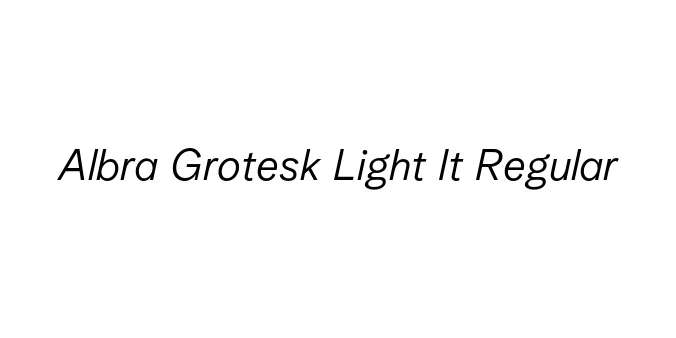
Albra Grotesk Light It Regular
Designed by BumBumType
Albra Grotesk is a contemporary sans-serif typeface family designed by the independent foundry BumBumType. It is part of the larger Albra collection, which aims to provide a high-performance toolkit for modern designers seeking a balance between classic structures and modern aesthetics. The Grotesk variant strips away decorative elements to offer a clean, high-contrast look that bridges the gap between historical grotesque models and modern elegance.
The Light Italic version is characterized by its sophisticated slant and refined character construction. It offers excellent legibility in editorial contexts while maintaining a distinct, fashion-forward personality. This weight is particularly effective for high-end branding, digital interfaces, and print layouts where a touch of modern minimalism and professional polish is required.
Albra Grotesk Light It Regular Best Uses
Perfect for pull-quotes, captions, and body text in high-fashion magazines.
Ideal for sleek, modern brand identities and professional letterheads.
Clean and highly legible for website headers and minimalist UI elements.
Provides a premium feel for high-end product descriptions and tags.